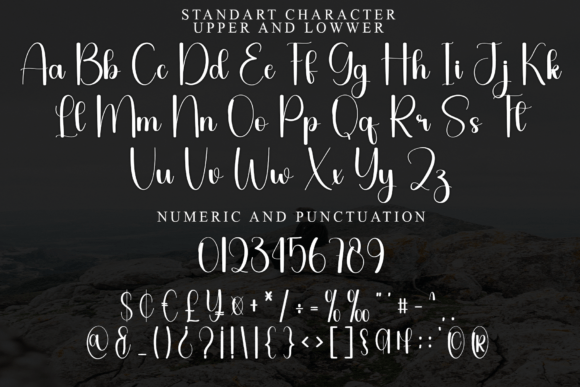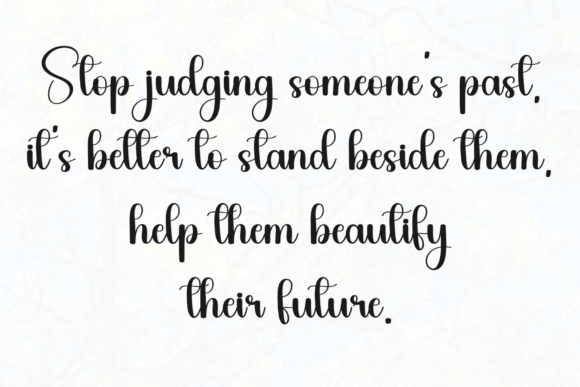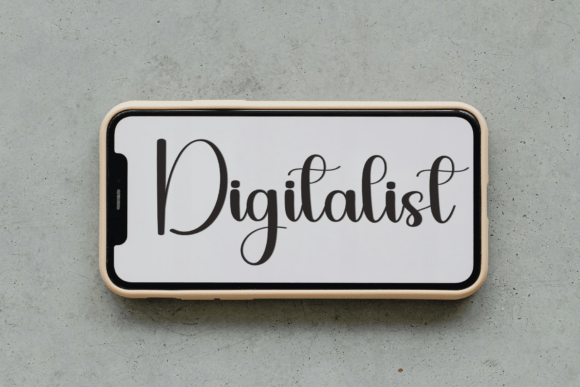
Introduction to Simple Launching Font
Have you ever stared at a blank canvas, trying to find the perfect font to bring your creative project to life? It’s that moment of frustration, when the right design resource seems elusive, that we stumble upon a game-changer – the Simple Launching Font.
This beautiful and eye-catching font is designed to leave a lasting impression, with its soft, unique touch and distinctive strokes giving it a special character. Its versatility makes it a valuable asset for designers, who can use it to create high-quality designs that appeal to a wide range of audiences.
Key Features of Simple Launching Font
- High-quality design resource for creative projects, ideal for modern designs and presentations.
- Unique, modern font with a transparent background, allowing for seamless integration with any design.
- Perfect for use in digital design, including web and mobile applications, due to its crisp and clean appearance.
- Designed to be versatile, suitable for use in a variety of creative projects, from logos to typography-based designs.
Honest Review: Simple Launching Font
As a designer, I’m always on the lookout for high quality design resources that can elevate my creative project. The Simple Launching Font is one such find. I was immediately drawn to its clean and modern aesthetic, making it perfect for a wide range of applications.
- ✨ High quality design with a transparent background, allowing for seamless integration into any design project.
- ✨ Versatile and easy to use, suitable for both personal and professional projects.
- ⚠️ Limited customization options, which may not be suitable for designers looking for a more bespoke font.
Overall, I’m impressed with the Simple Launching Font. Its clean design and versatility make it an excellent addition to any design project. While it may have some limitations, it’s a great resource for designers looking for a high quality, free design resource.
Simple Launching Font
The Simple Launching Font is a high-quality design resource perfect for creative projects. Its clean and modern design makes it ideal for any visual project.
The Simple Launching Font is perfect for:
- Creating business cards and brochures
- Designing social media graphics and ads
- Developing brand identity and logos